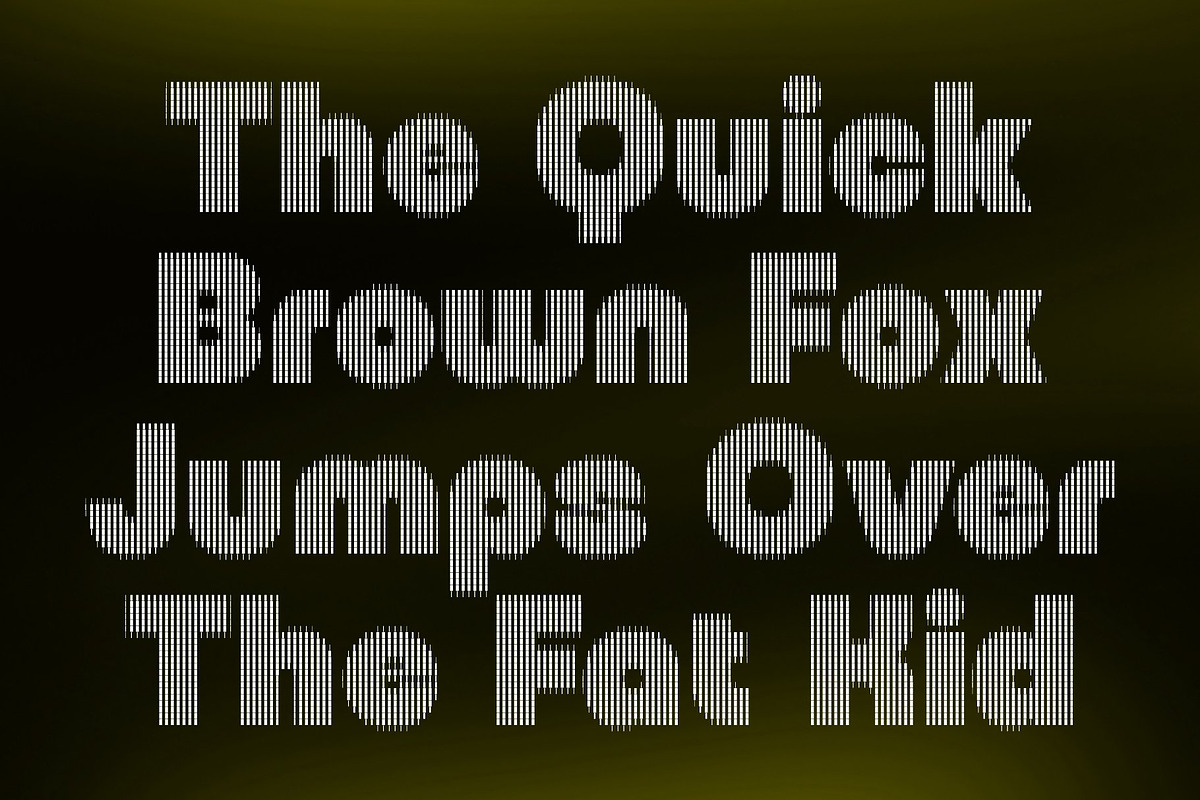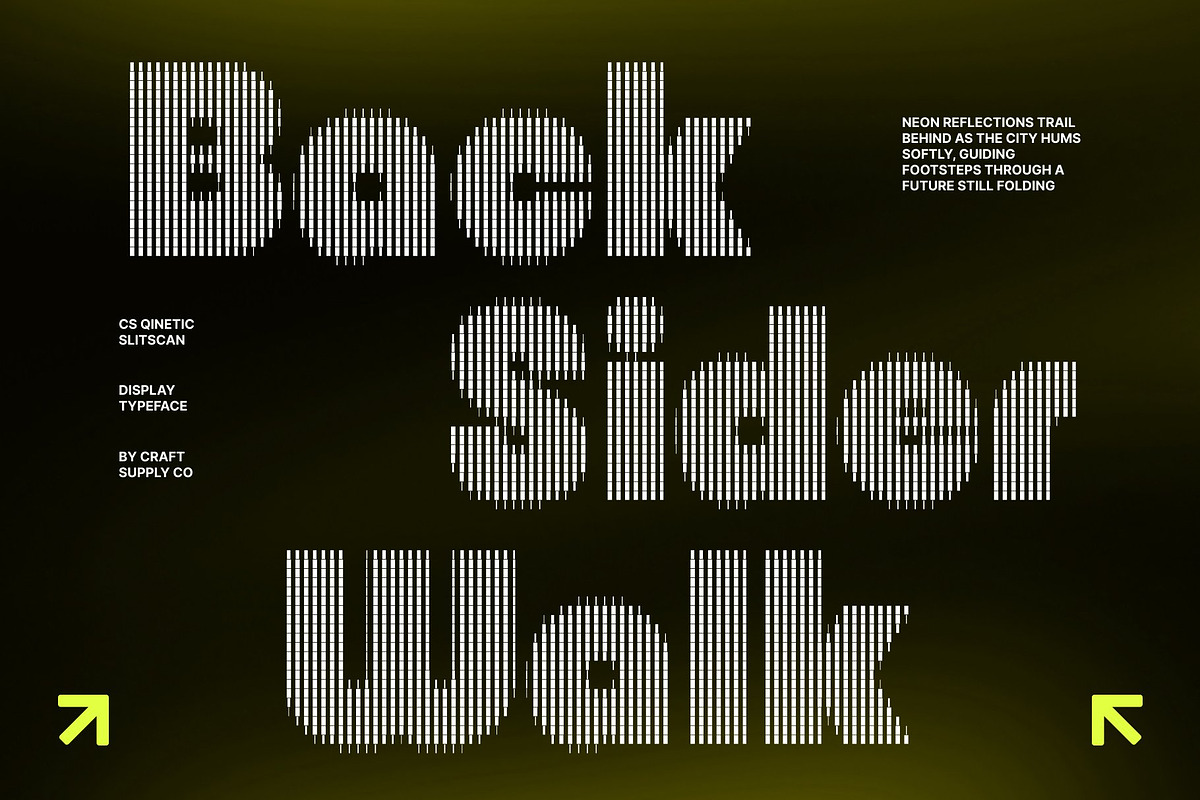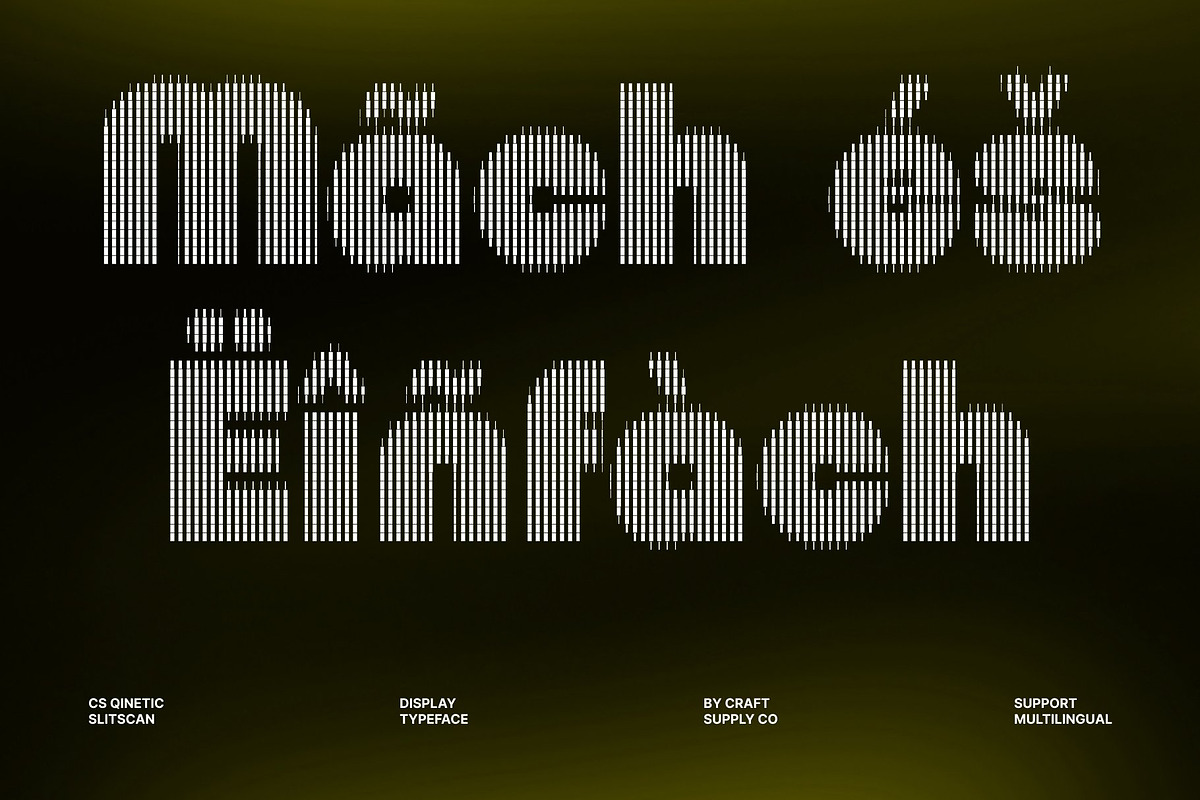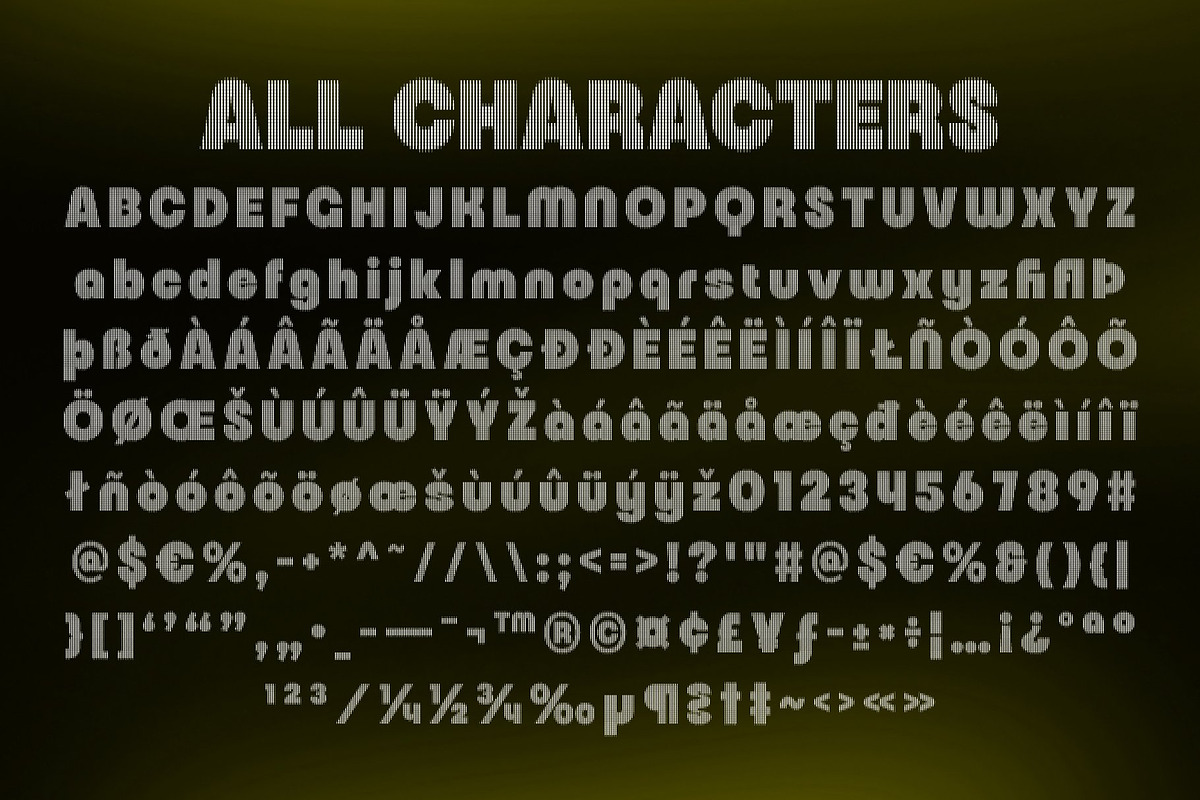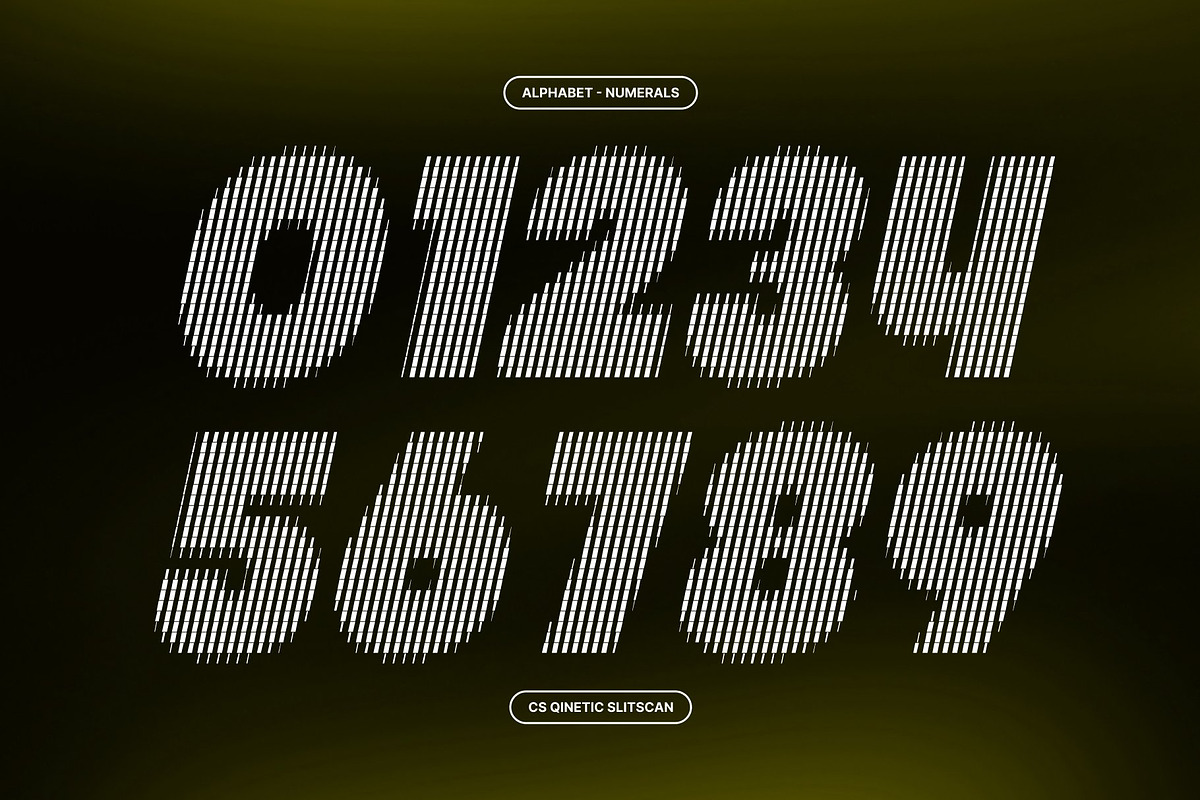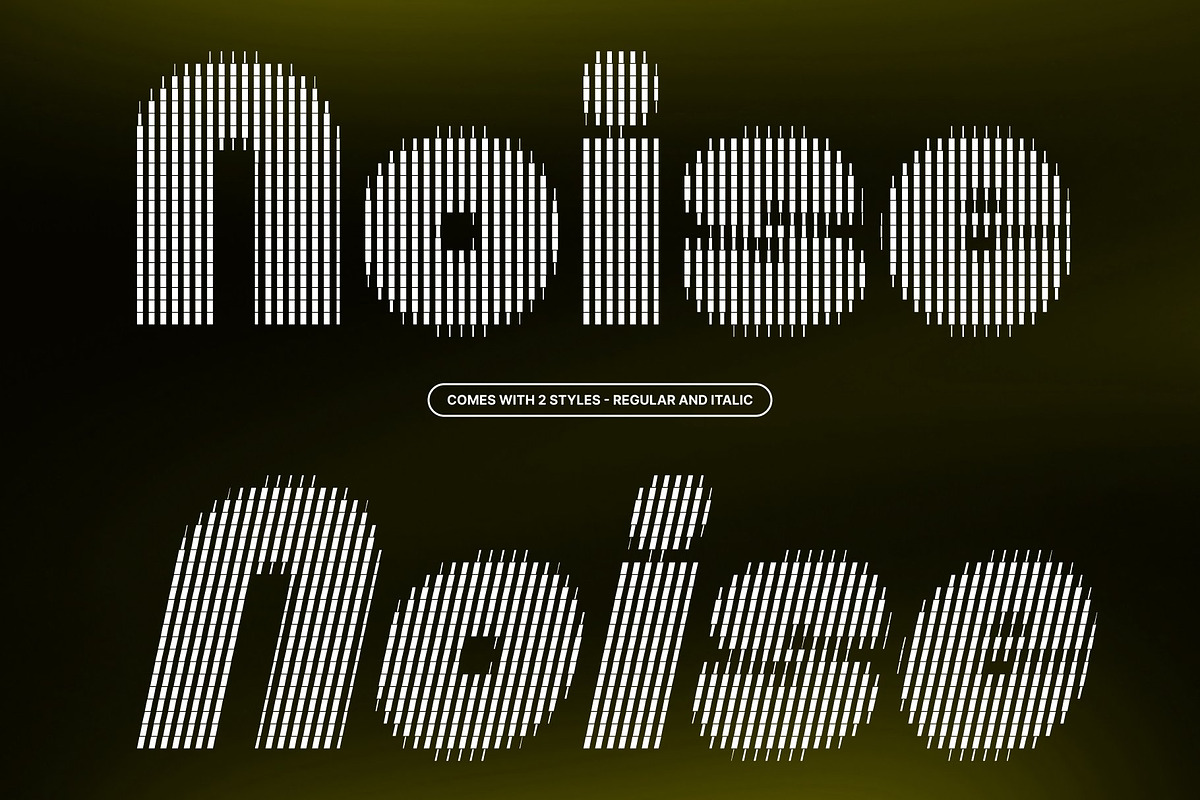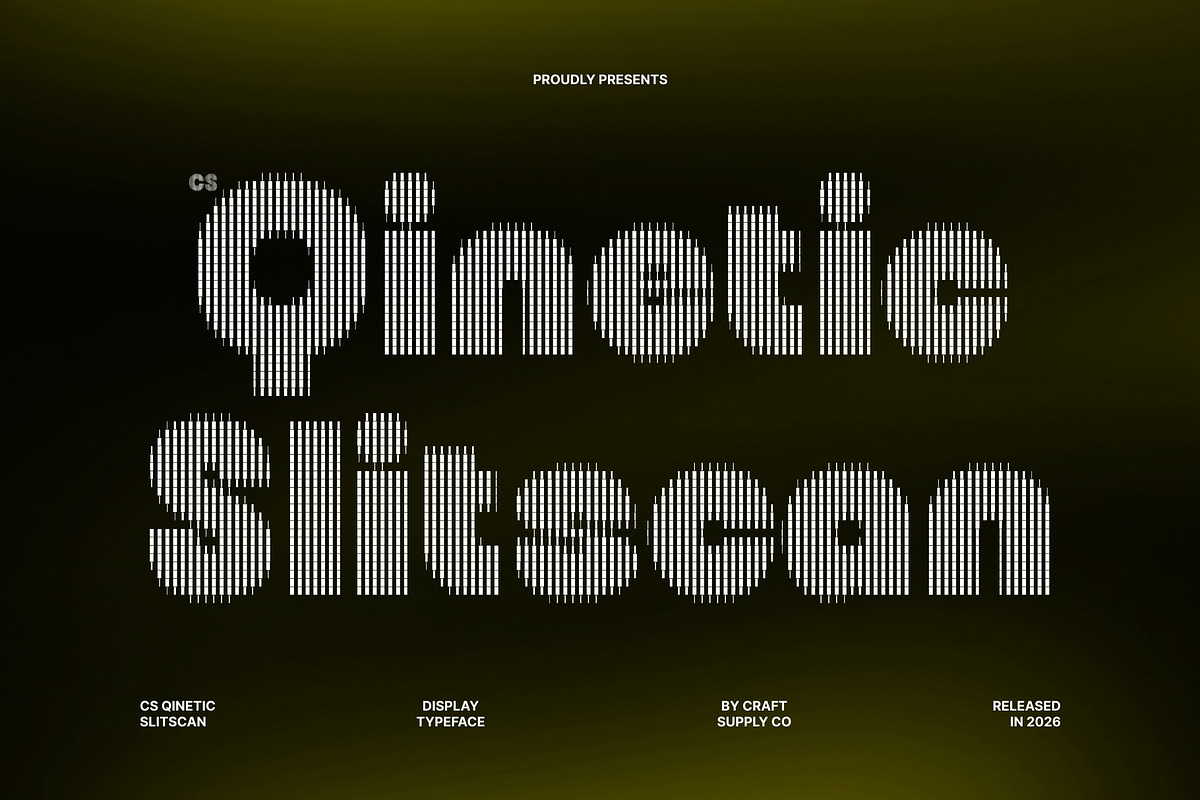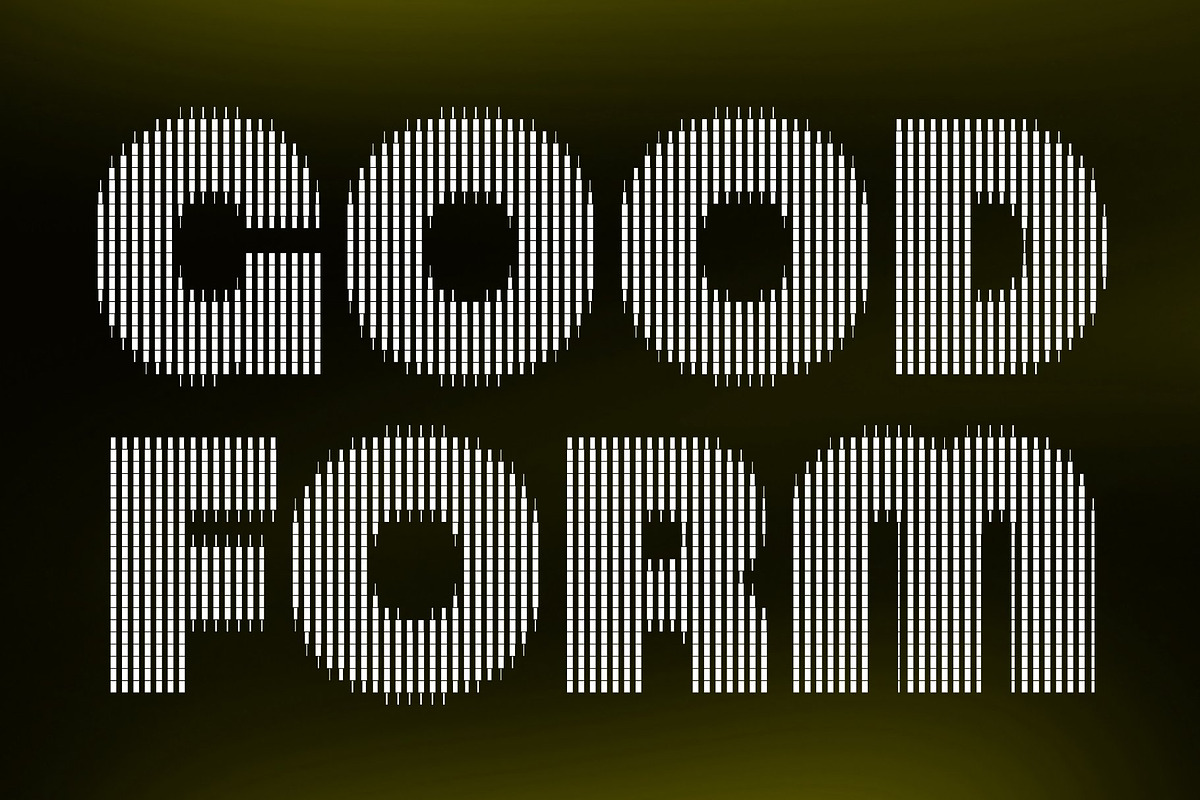
CS Qinetic Slitscan
CS Qinetic Slitscan – Geometric Precision with Futuristic Motion
Bold Modern Sans Serif with Strong Structure This is a modern sans serif display typeface featuring bold geometric forms and clean construction. Its structured letterforms project confidence, precision, and clarity, creating a strong visual presence that feels contemporary and professional.
Slitscan Effect: Dynamic Motion & Digital Distortion Inspired by the slit-scan visual technique, this typeface incorporates vertical sliced layers that introduce movement, rhythm, and futuristic energy. The effect adds a subtle glitch-inspired character while preserving the font’s clean geometry and readability.
Contemporary Style with Powerful Impact Built with modern aesthetics in mind, this font combines sharp geometry with streamlined forms to produce a bold yet refined typographic voice. Its solid weight ensures that every headline and composition stands out with authority and confidence.
Ideal for Strong and Professional Designs Perfect for branding, logos, posters, editorial layouts, digital interfaces, and technology-driven visuals. Its geometric precision and futuristic edge make it highly effective for projects that require a clean, impactful, and sophisticated appearance.
Balanced Boldness and Readability Despite its bold and experimental style, this font maintains excellent legibility and balanced proportions. The structured construction allows designers to create visually striking layouts without sacrificing clarity or usability.
CS Qinetic Slitscan Regular
CS Qinetic Slitscan Italic